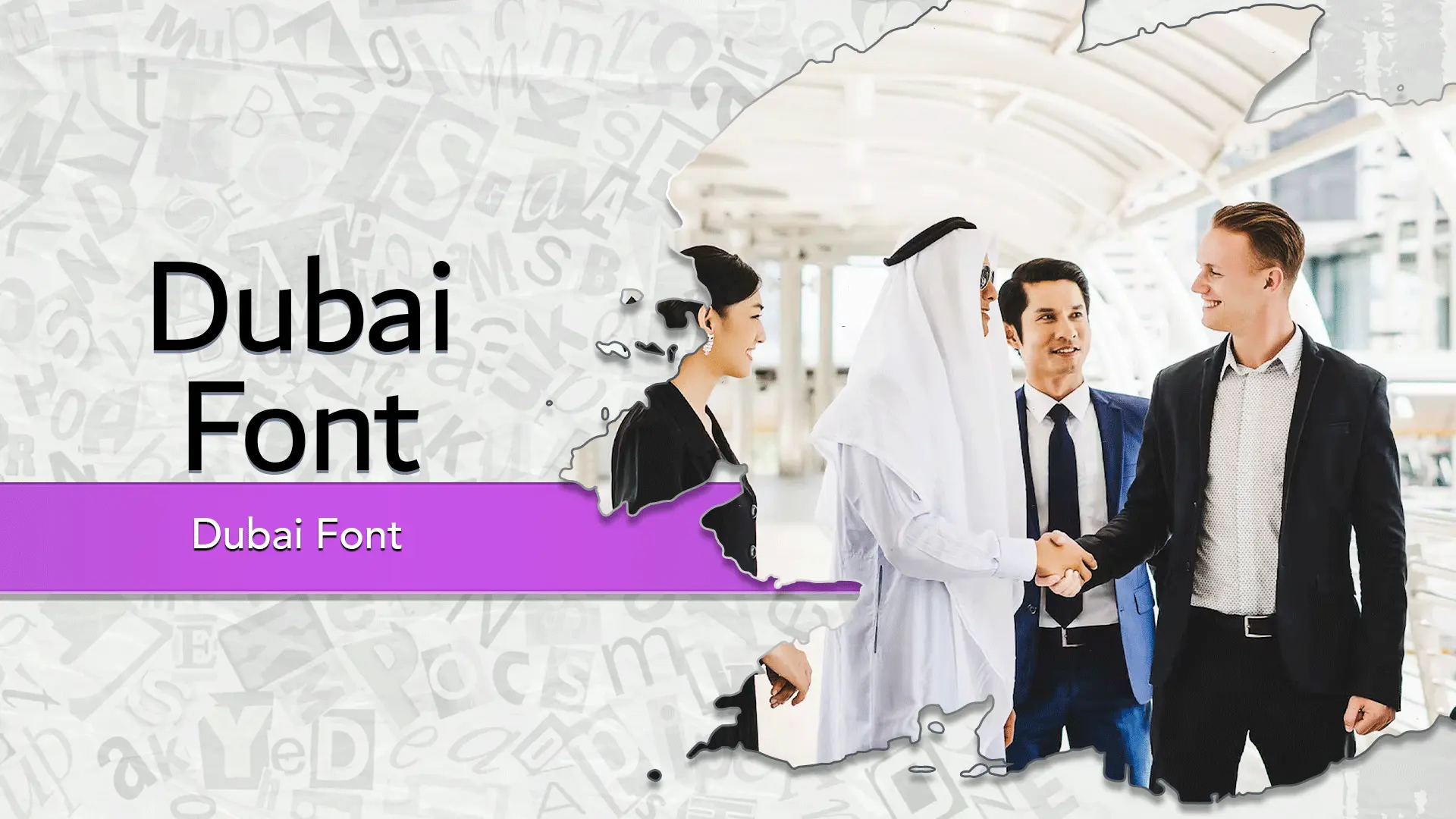
The Dubai font family may be ideal for you if you enjoy working on an artistic design project. The lively, expressive look of this typeface, which was created by Nadine Chahine and others of the Monotype Design Studio, makes it ideal for Official Communications and Documents(Government Correspondence, Corporate Communications), Digital Interfaces and Web Design(Websites and Applications), Branding and Marketing(Modern Arab Identity, Tourism and Hospitality, Global Communication), Body Text and other light-hearted visual projects.
Regular, Medium, Light, Bold are the four primary font styles of the Dubai font family. You may build dynamic, visually appealing text layouts with the distinct flair that each style offers. With crisp, readable lines and a relaxed tone.